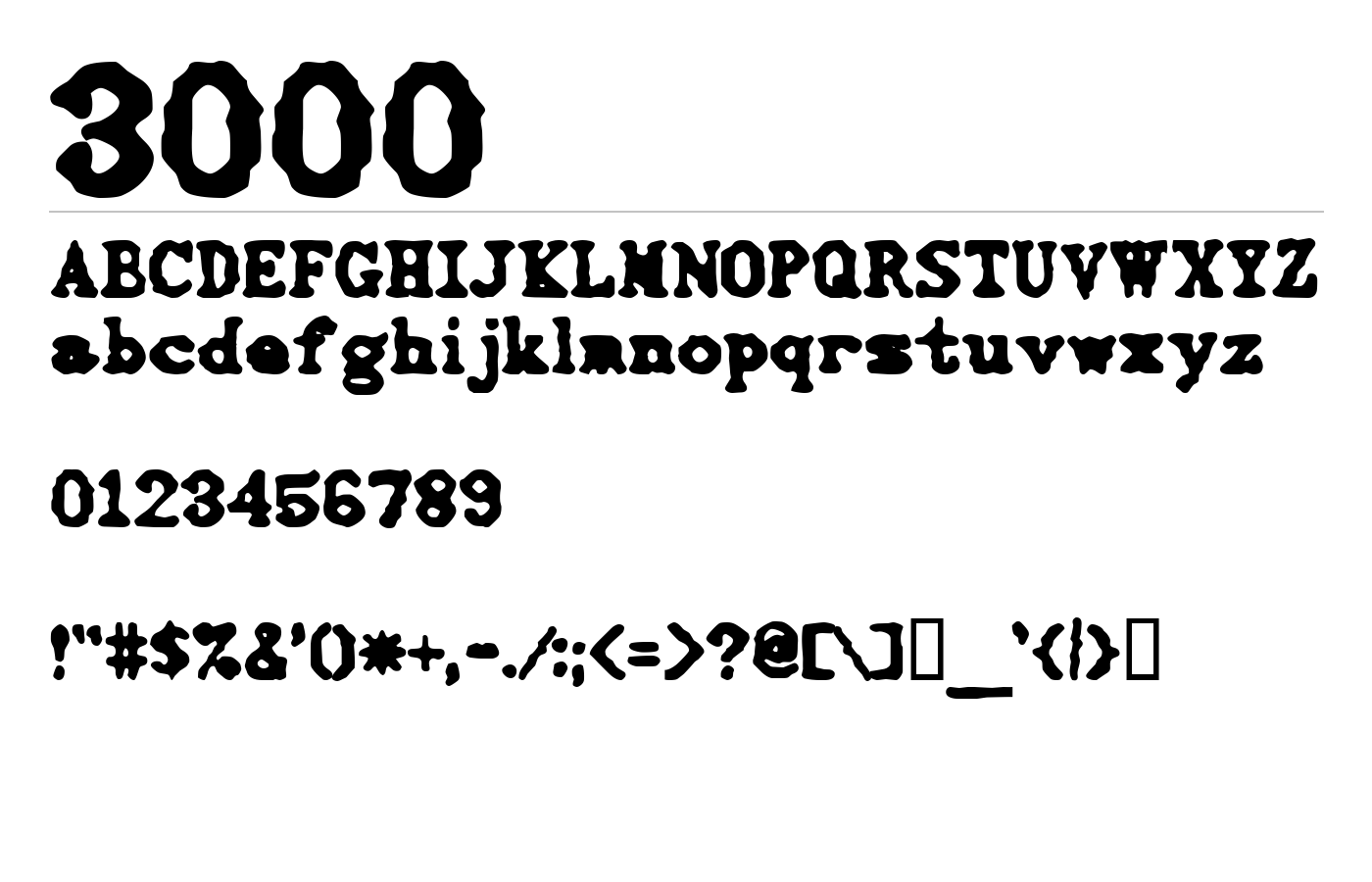
3000 Font is a bold, serif typeface with a rough, textured appearance that gives it a rugged and vintage feel. Its slightly condensed letterforms feature pronounced, thick serifs with irregular edges, creating a distressed, hand-stamped look that works well for eye-catching headlines, posters, and branding that needs a bold, character-rich style. This font is perfect for projects seeking a strong yet playful personality, blending old-fashioned charm with a touch of modern grit.
3000 Font